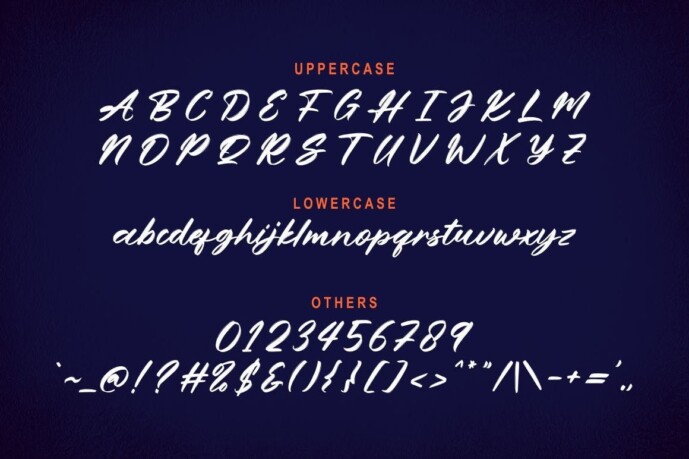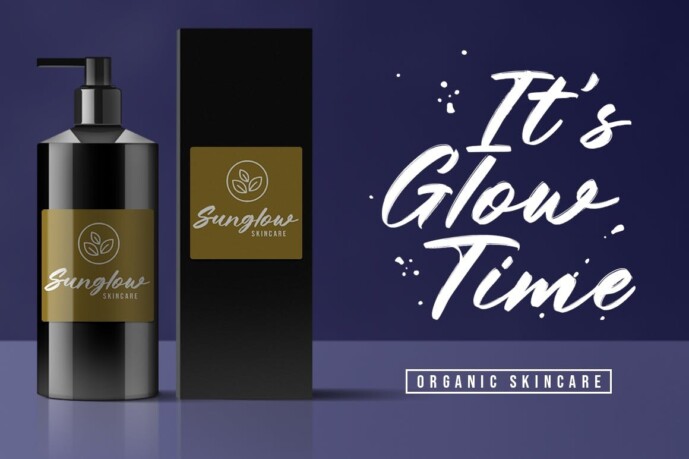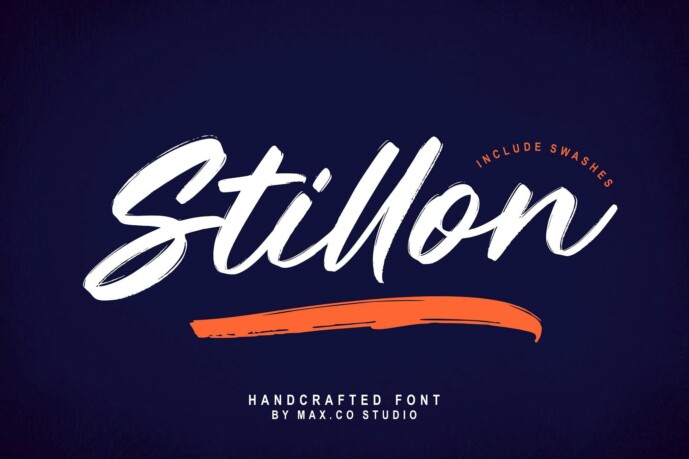
Stillon Font
Designer: Max_co
Stillon Font is a textured brush font, a contemporary approach to design, handmade and natural with an irregular base. Suitable for headline design. Like magazine, invitations, book title, stationery design, quotes, branding, Logos, greeting card, packaging design, poster,etc.